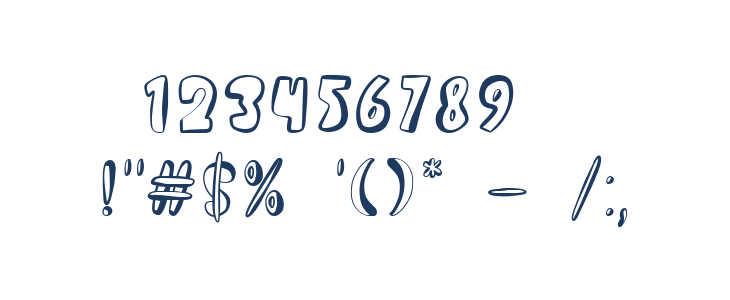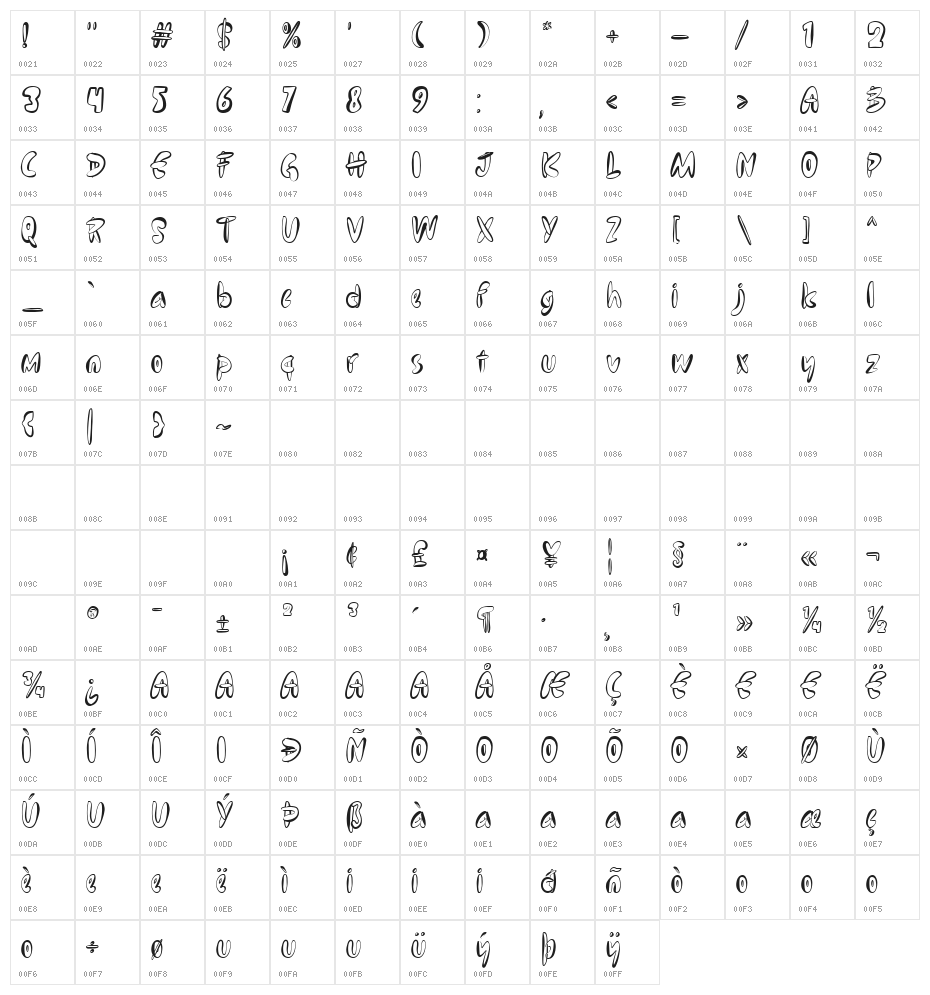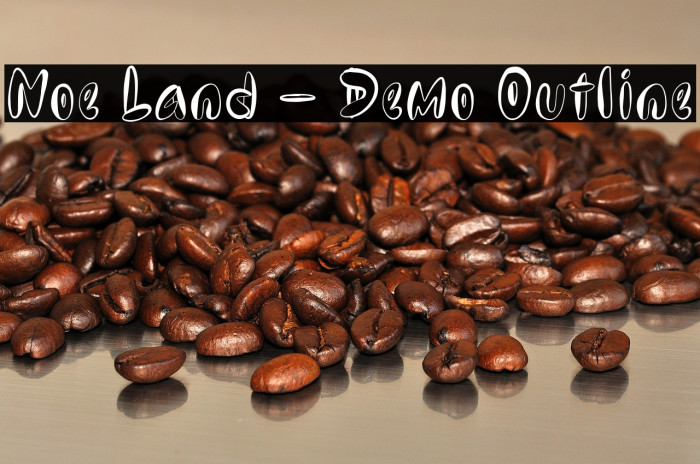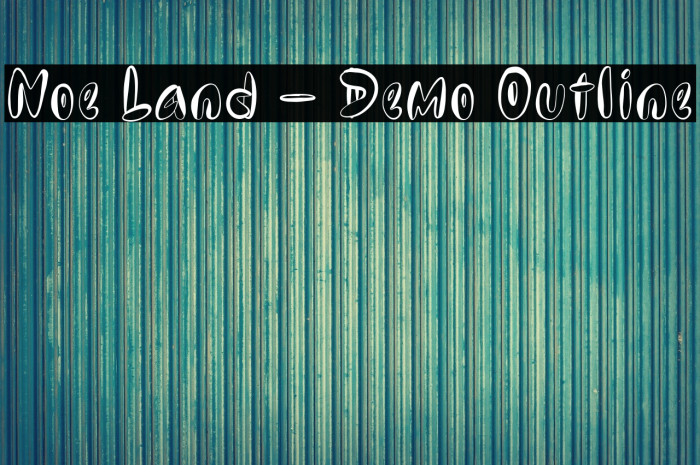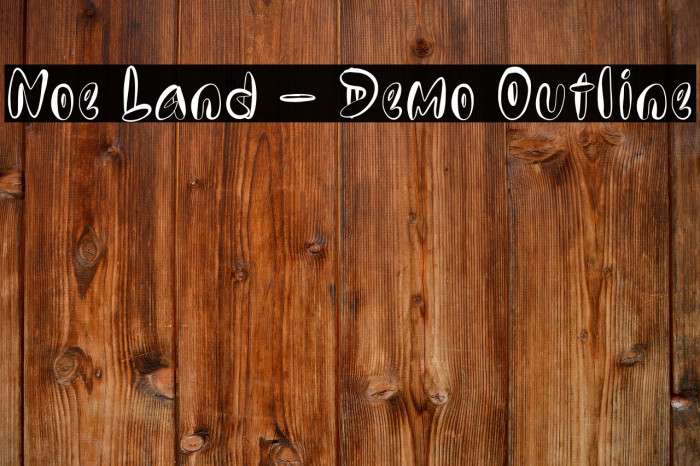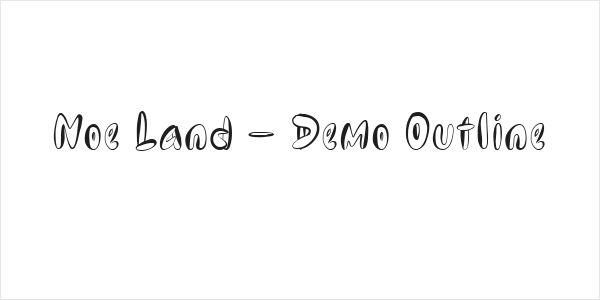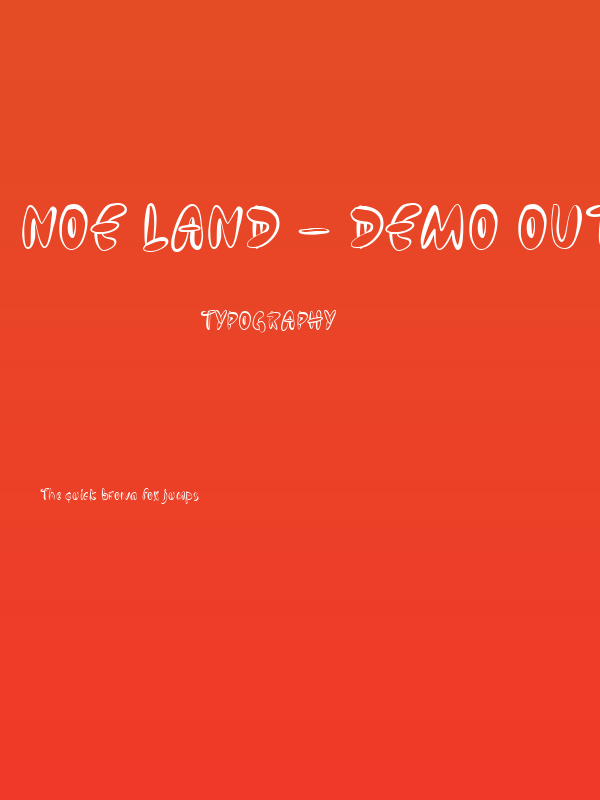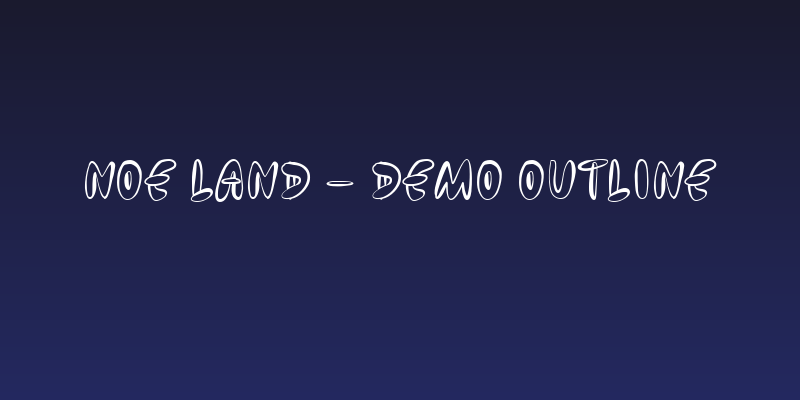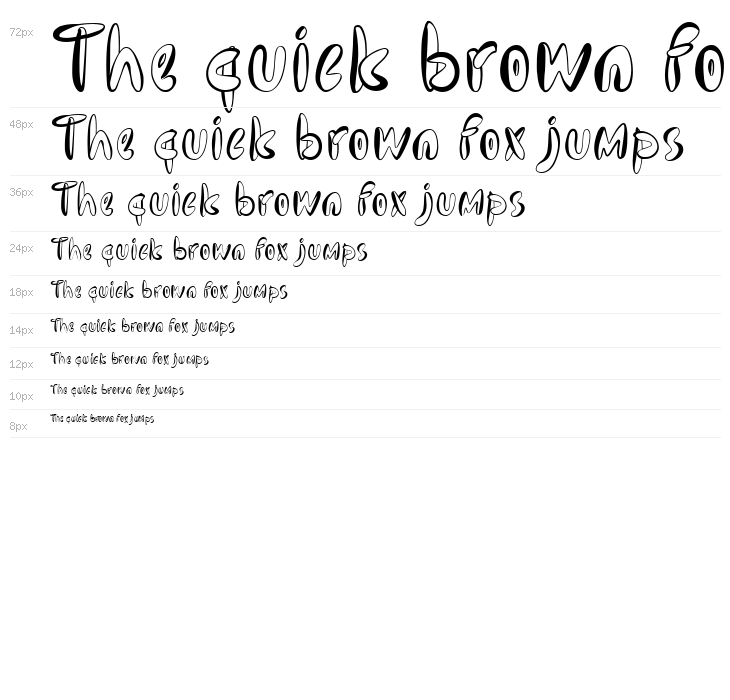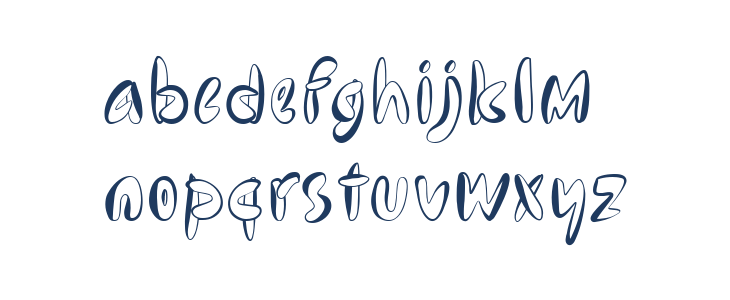
Noe Land - Demo Outline Font
Noe Land - Demo Outline Description
This playful and dynamic font features a unique outline style that combines bold and thin strokes, creating a lively and energetic appearance. The characters are designed with a hand-drawn aesthetic, giving them a whimsical and informal feel. The uppercase and lowercase letters maintain a consistent style, with rounded edges and a slightly irregular shape that adds to the font's charm. Numbers and special characters are crafted with the same attention to detail, ensuring a cohesive look across all elements. This font's distinctive outline effect makes it stand out, perfect for projects that require a touch of creativity and fun.
| Proposed Projects | Ideal for children's books, creative posters, playful branding, and artistic invitations. |